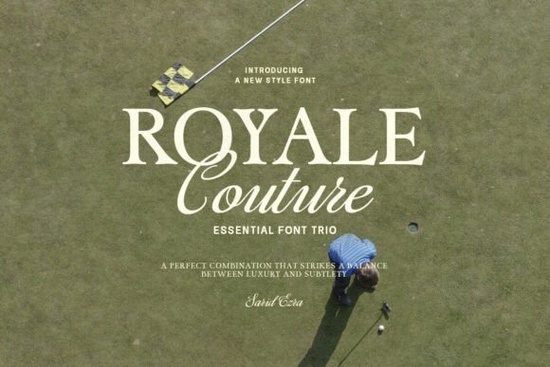
If you're looking for a font set that brings elegance and flexibility to your projects, Royale Couture Font is a thoughtful choice. It’s not just one font it’s a trio of styles designed to work together seamlessly: a bold serif, a clean classic sans, and a flowing script. Whether you’re designing a logo, crafting wedding invites, or creating quote graphics, this collection has you covered.
What Makes Royale Couture Stand Out?
Unlike many font bundles that feel mismatched or hard to pair, Royale Couture was built with harmony in mind. The three styles were developed to complement each other naturally no guesswork needed. You can mix and match them across your designs without worrying about clashing tones or weights.
The font supports multilingual characters, including Latin-based scripts used in French, German, Spanish, Italian, and more. It also includes numbers, punctuation, and common symbols perfect for branding materials, packaging, and digital content where clarity matters.
Perfect for Multiple Creative Uses
Because of its refined look and adaptable structure, this font works well in both digital and print formats. Here are some common ways creatives use it:
- Branding & Logos – The bold serif adds authority, while the script gives a touch of luxury.
- Wedding Invitations – Pair the script with the sans for a modern yet timeless feel.
- Quote Graphics – Use the serif for impactful statements and the script for decorative flourishes.
- Print-on-Demand Products – Ideal for mugs, T-shirts, and wall art where style and readability go hand in hand.
How to Use Each Style Without Overcomplicating Your Design
Choosing the right font for the right job makes a big difference. With Royale Couture, you don’t have to stretch to find compatible fonts each one fits naturally into the same design language.
The bold serif works best when you want to make a strong statement think headlines, business cards, or editorial layouts. Its structured lines convey confidence and tradition.
The classic sans is clean and readable, perfect for body text, labels, or minimalist designs. It balances the richness of the serif and script, acting as a neutral base.
The stylish script adds flair and movement. Use it sparingly for titles, signatures, or decorative elements to keep your design from feeling cluttered.
For inspiration, explore how others use similar fonts in professional contexts. Royale Couture Font has been used in elegant branding, fashion labels, and seasonal greeting cards by designers around the world.
Why This Collection Works Better Than Mixing Separate Fonts
Many creators spend time hunting for matching fonts. That process can be frustrating and time-consuming. With Royale Couture, you get a cohesive set from day one. The design team ensured consistent x-heights, spacing, and stroke weights so everything feels like it belongs together.
If you’ve ever struggled with pairing fonts that don’t align visually, this bundle removes that stress. It’s especially helpful if you’re new to typography or working under tight deadlines.
Getting Started with Royale Couture
Try combining the three styles in a single layout. For example:
- Use the script for the main title.
- Apply the classic sans for supporting text.
- Let the bold serif handle the tagline or accent line.
Remember: less is often more. Don’t use all three styles in every project choose based on what your message needs.
Once you’ve tested the font in a few designs, consider how it could support your brand identity or product line. If you’re selling on Etsy, Printful, or Teespring, a polished, professional font can help your items stand out.
Final Tip: Keep a Style Guide
Document how you use each font in your projects. Note which combinations work best for different purposes. This helps maintain consistency across your work and saves time later.
Now that you know how versatile Royale Couture is, try it in your next creative project. You’ll likely find yourself reaching for it again and again.